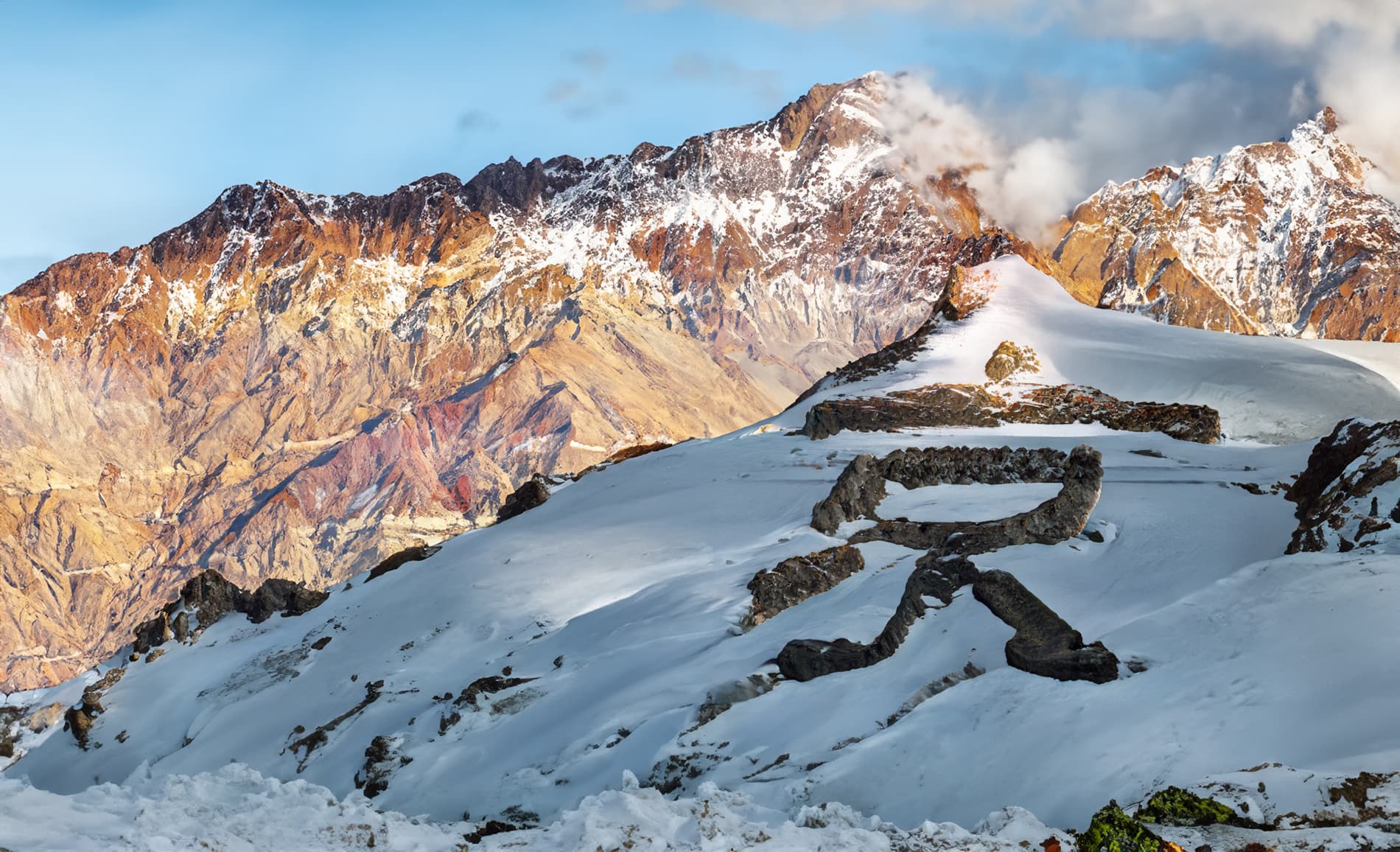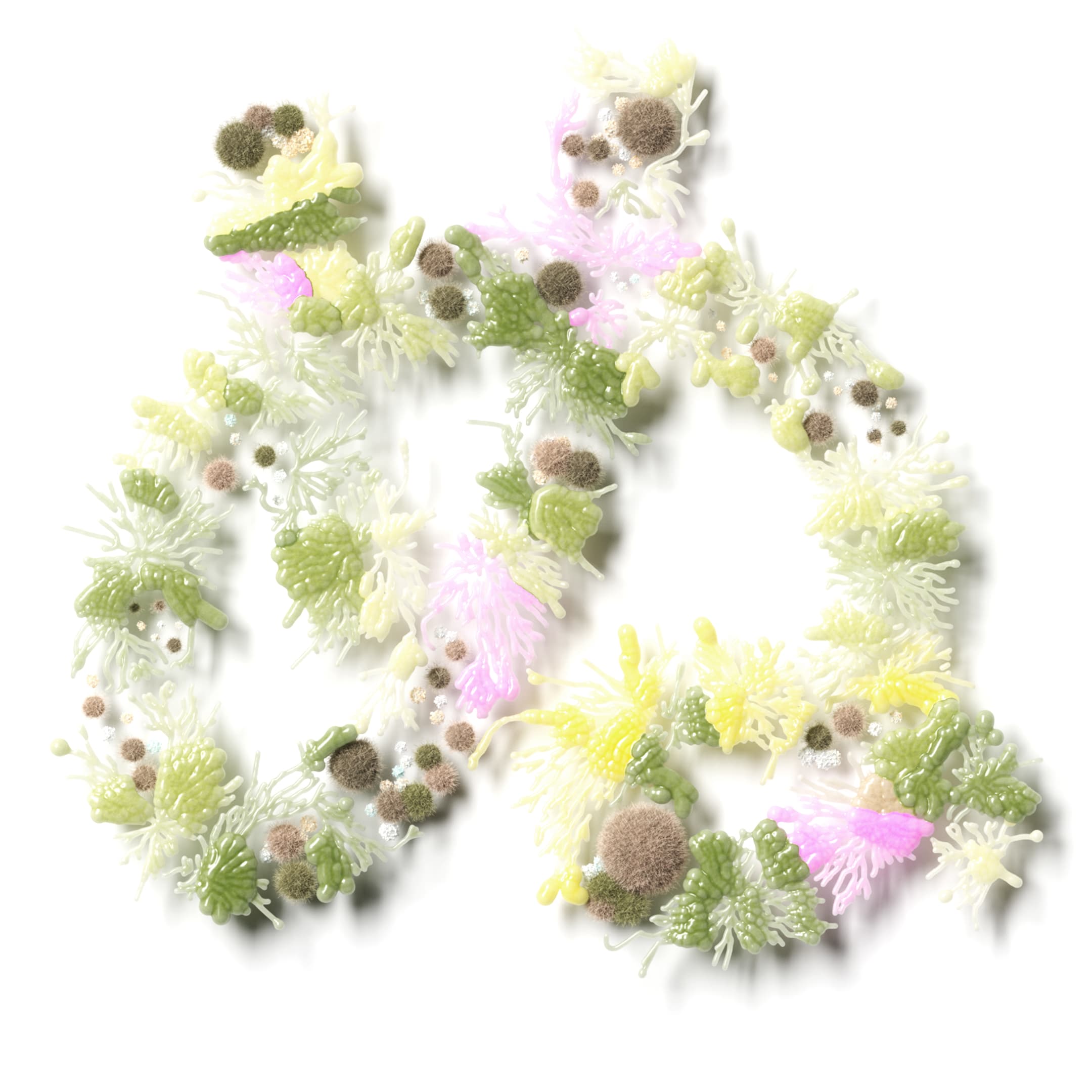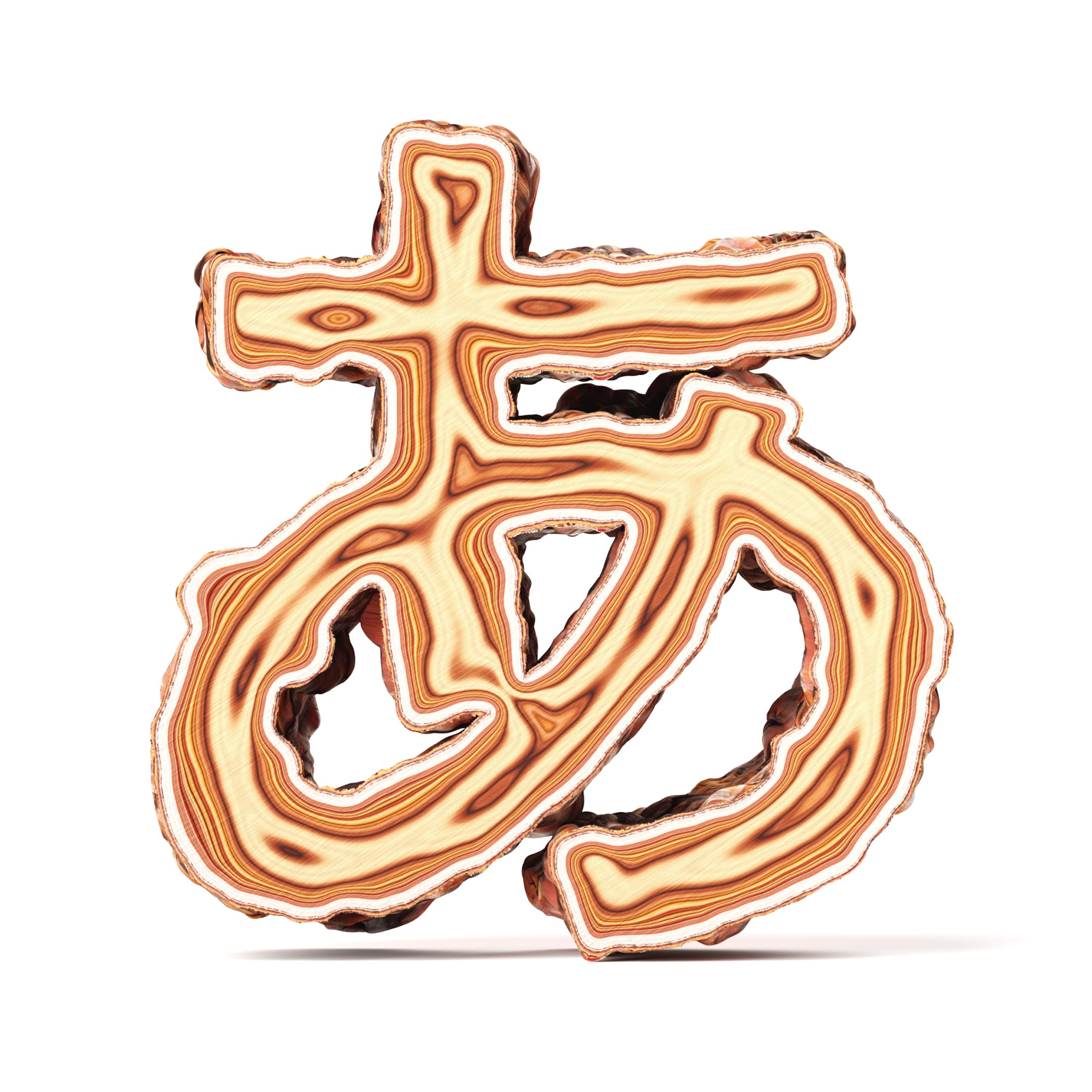
Sharp Earth 日本語
Sharp Earth is a new multi-script sans serif typeface spearheaded by Lucas Sharp and drawn in collaboration with a team of local experts from around the globe. The Sharp Earth family covers nearly every latinized language script on Earth in addition to Greek, Cyrillic, Arabic, Thai, Devanagari, and Japanese. As a contemporary expression of the international style, Sharp Earth is unified by a forward-looking aesthetic paradigm that has been drawn by and for a truly global design culture. Sharp Earth doesn’t neatly exist in any single sub-genre of the Sans Serif pantheon. Rather, it brings together core aspects of disparate sub-genres of sans serif type that share an emphasis on warmth, pragmatism, and utility.
Sharp Earth Japanese is a comprehensive Japanese typeface system covering Hiragana, Katakana, and Kanji scripts that retains Sharp Earth’s core design principles. Initially conceived as a Latin/Hiragana pairing designed by Lucas Sharp and Calvin Kwok, the scope of the project grew ambitiously. Overseen by Lucas and led by Calvin and Klio Peng, Sharp Earth Japanese testifies to the development of a comprehensive project that has spanned extensive research, meticulous planning, and collaborative design efforts with an international team. The design of Sharp Earth Japanese required the creation of new tools and evolving systems over a period of two years of sustained, concentrated work. The result is a harmonious typeface family that is a microcosm of the intricacies and complexities of contemporary multiscript design.
Sharp Earth JP Kana | Type Director & Designer: Lucas Sharp | Designers: Kazuhiro Yamada (nipponia), Calvin Kwok, Klio Peng & Ayaka Ito | Sharp Earth JP Kanji | Type Directors & Designers: Calvin Kwok, Klio Peng, & Lucas Sharp | Designers: Fang Ping Lin & Wei Yun Kan. Consultants: Kudoh Kazuhiko (Realtype), Kunihiko Okano (Oryzae)
Sharp Earth Case Study
Design Logic
開発当初、試作品として提供されたSharp Typeがデザインした仮名の「あ」「ぬ」「め」は従来の日本語のサンセリフ体にないデザイン処理が施されていた。左から振り下ろされる斜めのストロークが次のストロークと切り離されている処理だ。これはこの書体のキャラクターを決定づけるポイントになりうると判断して生かすことにした。一方で、組版したときにそれが読書の妨げにならないように細心の注意を払って他のグリフと調和させた。
Design Logic
At the early stage of the development, Sharp Type provided a set of prototype Kana, with glyphs like"あ" "ぬ" and "め" having a design treatment not found in conventional Japanese sans serif forms. In these glyphs, a diagonal stroke swung down from the left is separated from the next stroke. I decided to make use of this feature because I thought it could be a key point in determining the character of the typeface. On the other hand, I took great care to make it not interfere with reading in longer settings, and harmonized it with the other glyphs.
Sharp Earth Japanese
aalt
Access All Alternates
dlig
Discretionary Ligatures
fwid
Full Widths
liga
Standard Ligatures
Extended Latin JIS-1 standard